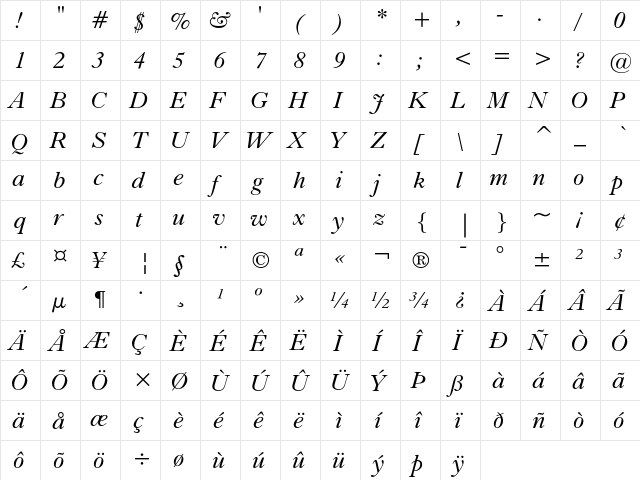
Dutch 766 Italic
Design Context for Dutch 766 Typeface
Dutch 766 takes a measured approach to typography — its balanced proportions and neutral character make it a reliable workhorse for both digital and print work. The slanted form adds forward momentum and visual energy.
Pro Tip: Try Dutch 766 for annotation and caption copy alongside an upright companion — the contrast in angle creates a dynamic but ordered typographic system.